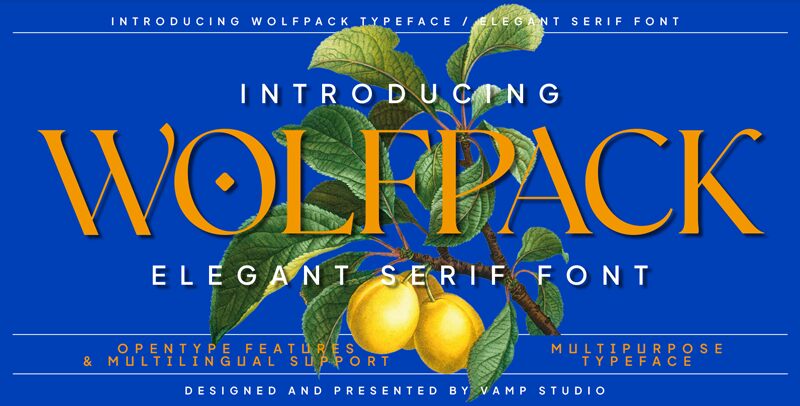
Wolfpack font by VampStudio is a free elegant serif font with bold, impactful characters and original decorative elements. Each letter design was created by balanced classic influences, and in such a modern style, the font becomes an element with versatile applications. From it, you can expect a visual result with a lot of legibility without any compromise on style and originality.
Use it for typographic posters, book covers, and luxury branding design projects. Collecting it in your library – whether as a student, designer, or even photographer – can add value to future designs. Also, experiment with Wolfpack on packaging, editorial and magazines layouts, business cards, and stationeries. It can work really well in both display and body text purposes.